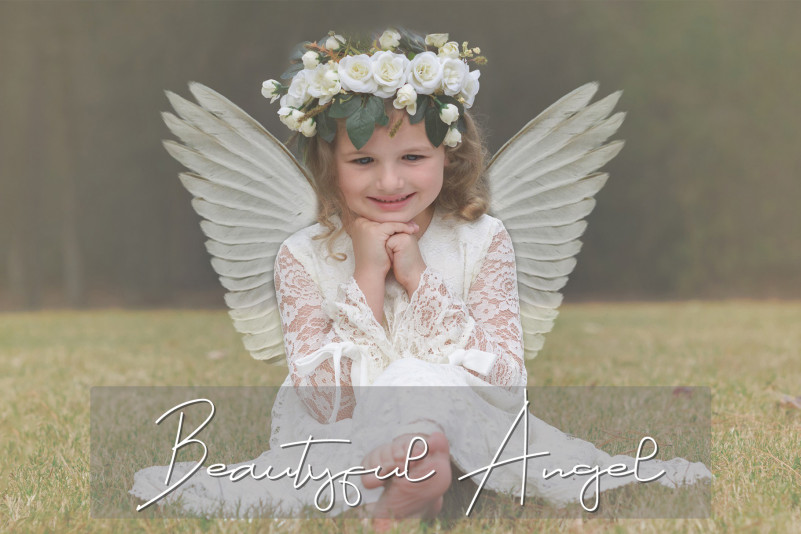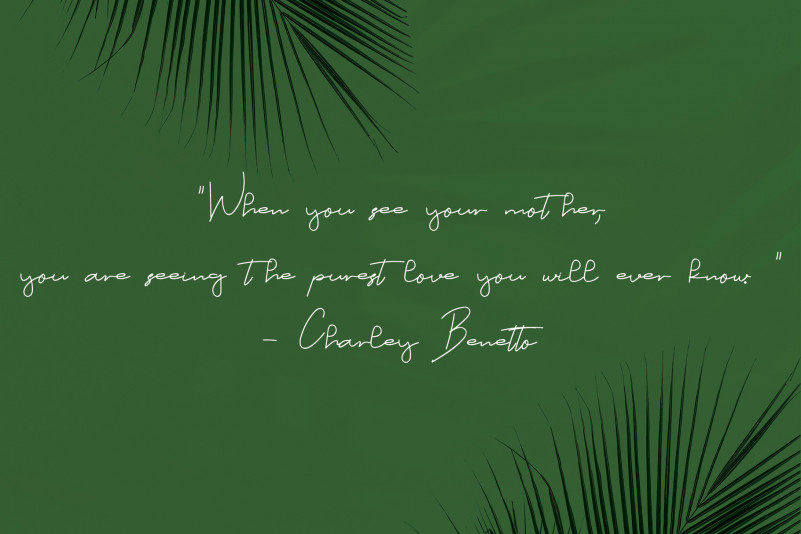
Angel Signature Font
Angel Signature Script Font
This is a thin and flowing handwritten font, described by an elegant touch, perfect for your favorite projects. This gentle font will look gorgeous on a variety of design ideas. It will add a joyful and romantic touch to each of your projects!